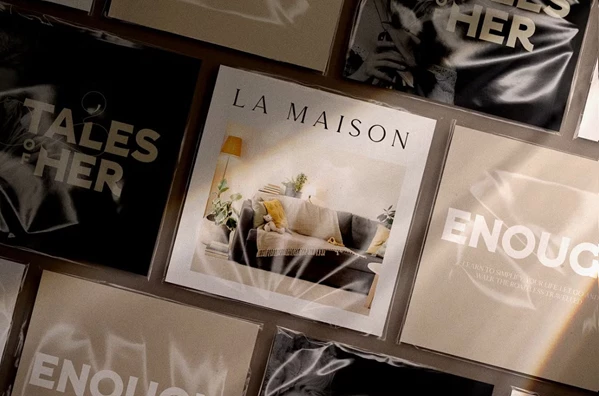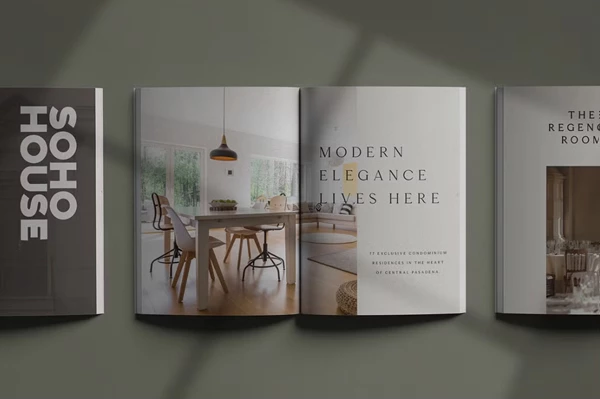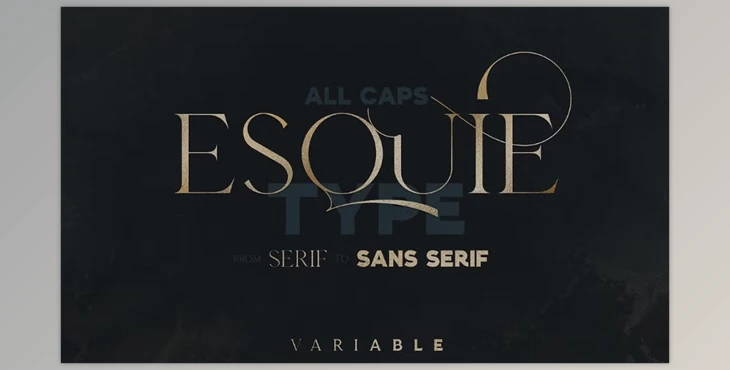
Esquie - from serif to sans typeface:
Esquie is a modern all-caps serif typeface font family that boldly combines serif and sans motifs and offers numerically nine unique styles. Esquie’s journey begins with the serif’s timeless sophistication and moves toward the subdued elegance of sans-serif. This typeface is suitable for branding, editorial layouts, and creative artistic projects. With the gradual shift across styles, Esquie becomes a vital asset for designers looking to add sophistication and contemporary flair.
Inclusion and Versatility
- Includes nine typefaces, both serif and sans-serif, with seamless transitions.
- Over 85 languages with Latin scripts are supported.
- Provides rich typographic features like ligatures, alternate letterforms, and more.
- Offers a fully variable format for style precision and customizability.
- Words are set in all caps, and each has a unique design.
Applications and Audience
- Esquie works well for high-end branding, boutique packaging, book covers, and any design that requires a sharp and classy look. Esquie features multiple tones and visual identities which makes it very useful to designers looking beyond a font diest and into a design system.
Branding and language flexibility
- Esquie’s rich support for languages includes Afrikans, Spanish, German, Italian and many others, giving it a wider range of use. In terms of design projects, accessing alternates in Adobe InDesign, Illustrator, and Photoshop is easy and customizable.